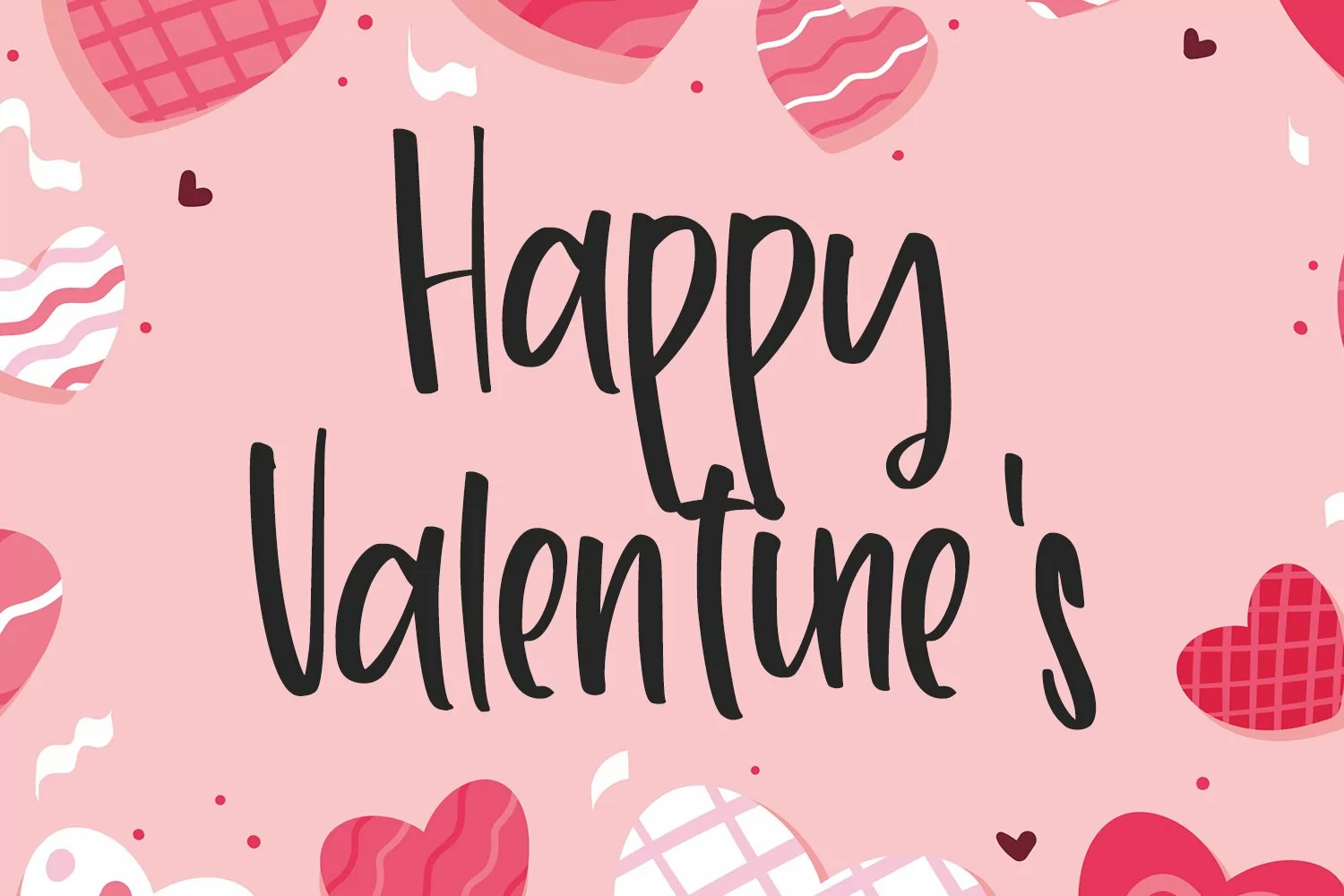
Johnnycake - Cute Handwritten Font that contain lowercase, uppercase, symbol, and also support multi language. There’s a lot ligatures in this font. This Font also comes with ligatures, alternates and many more. this font suitable for fashion, branding, catalog and other design what you want.
Johnnycake